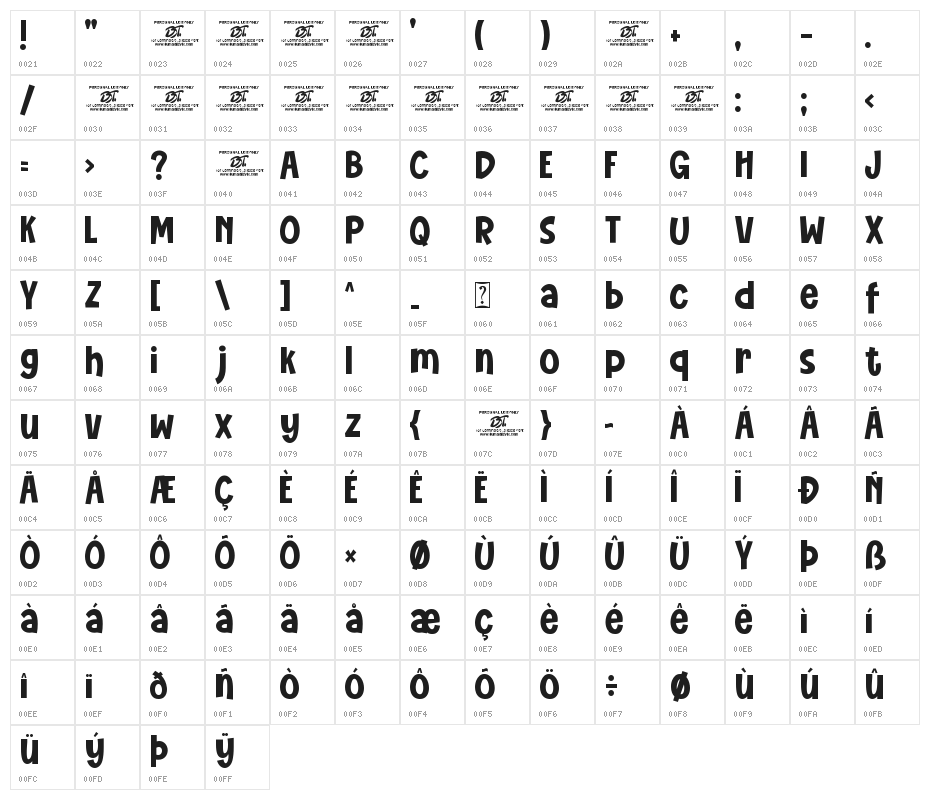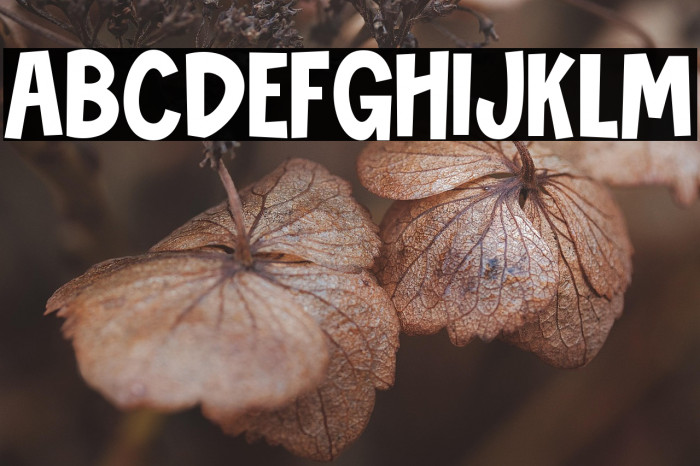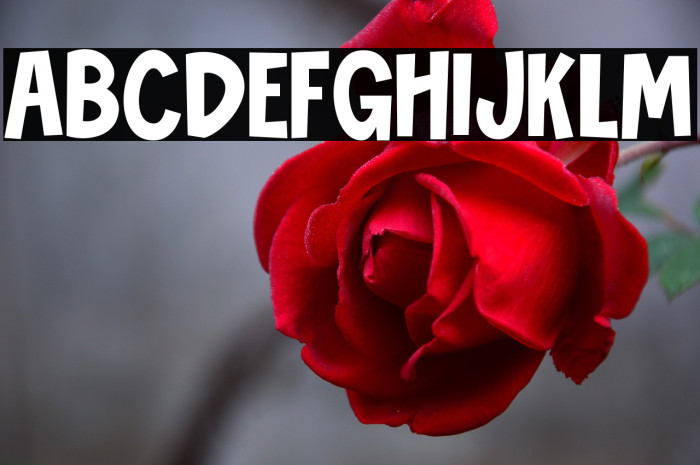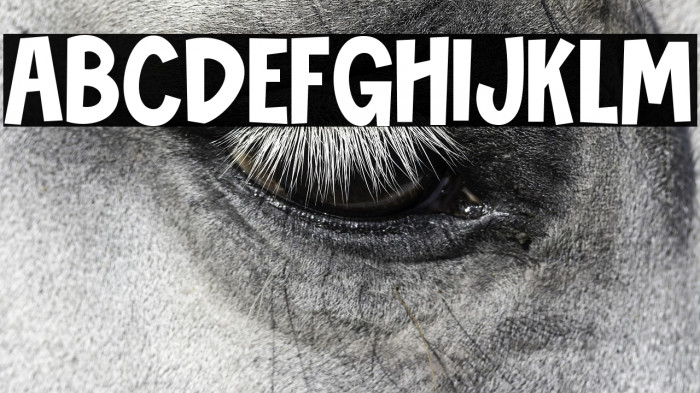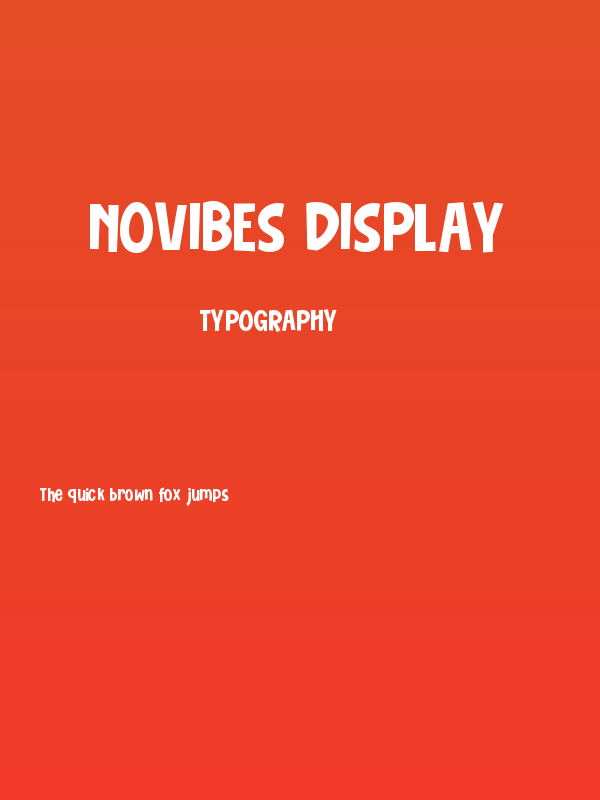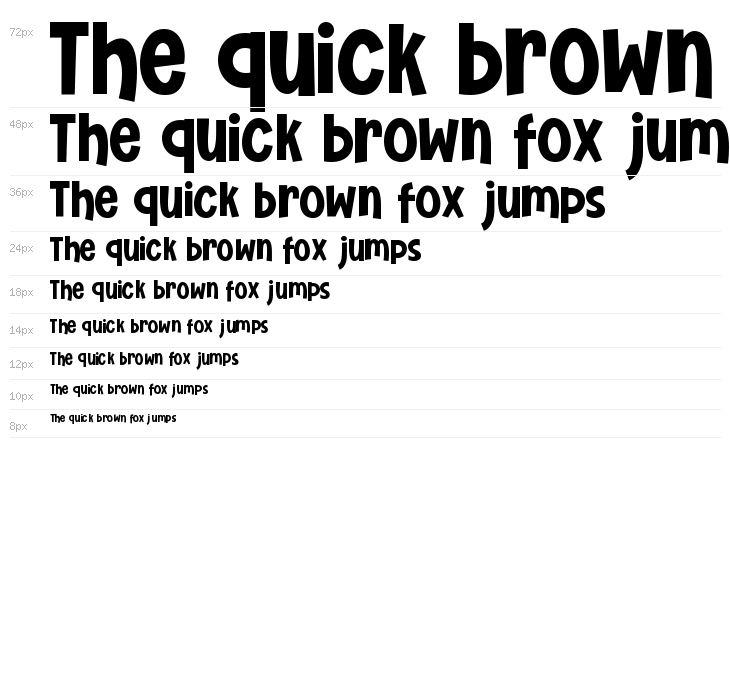
Novibes Display Font
Novibes Display Description
This playful and bold font features a unique, hand-drawn style with exaggerated curves and a slightly irregular baseline, giving it a whimsical and energetic appearance. The uppercase letters are tall and commanding, while the lowercase letters maintain a consistent flow with a touch of quirkiness. The font's thick strokes and rounded edges contribute to its friendly and approachable feel, making it ideal for creative projects. The special characters are equally bold and maintain the overall lively aesthetic, ensuring consistency across all text elements.
| Proposed Projects | Ideal for children's books, playful branding, posters, and creative social media graphics. |